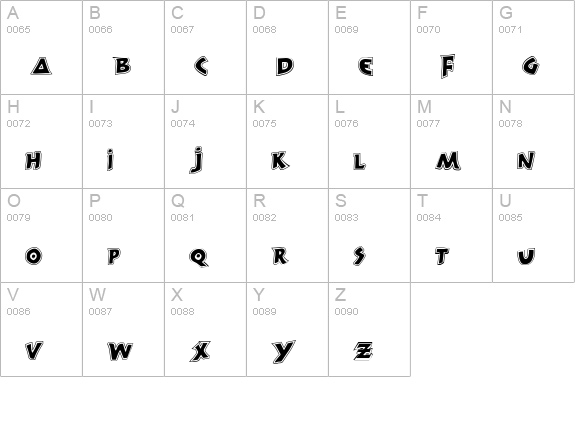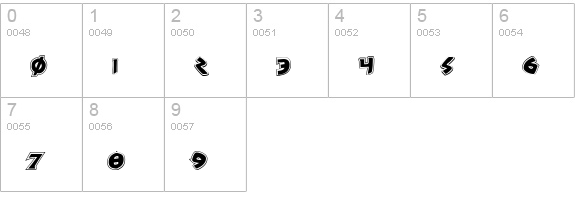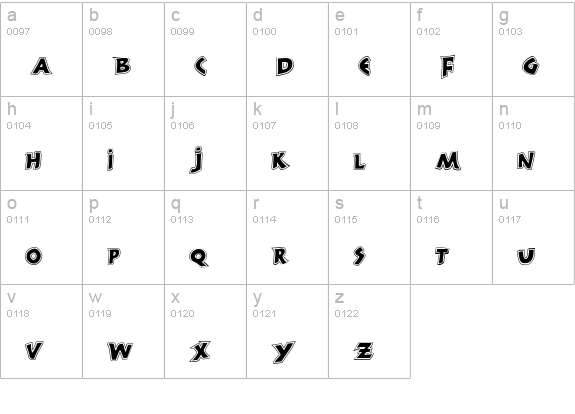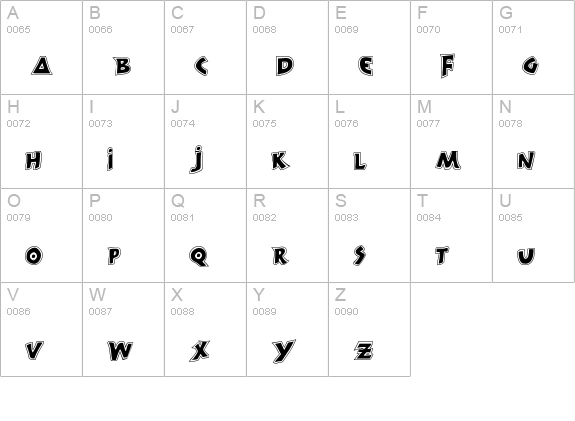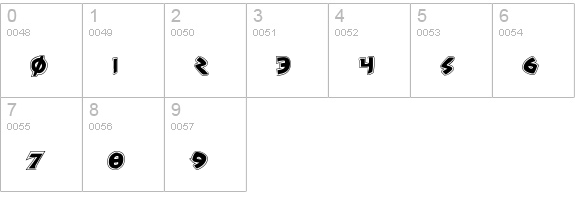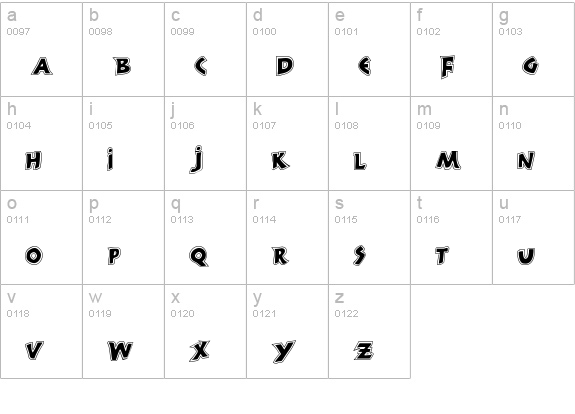
Introducing the exquisite 300 Trojans Greco font, a stunning display typeface that exudes elegance and sophistication. With its sharp lines and bold design, this font is perfect for making a statement in any project. Whether you're creating a logo, poster, or branding materials, the 300 Trojans Greco font will surely captivate your audience. Best of all, this font is available for free download at FontsMarket.com. Yes, you heard it right - you can get your hands on this amazing font without spending a dime! Don't miss out on the opportunity to enhance your designs with the 300 Trojans Greco font's unique charm and versatility. Download it today and let your creativity shine!